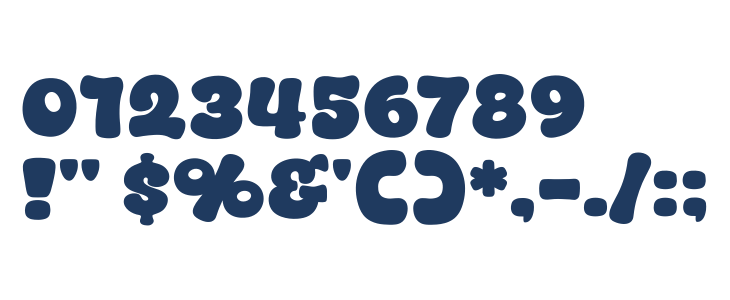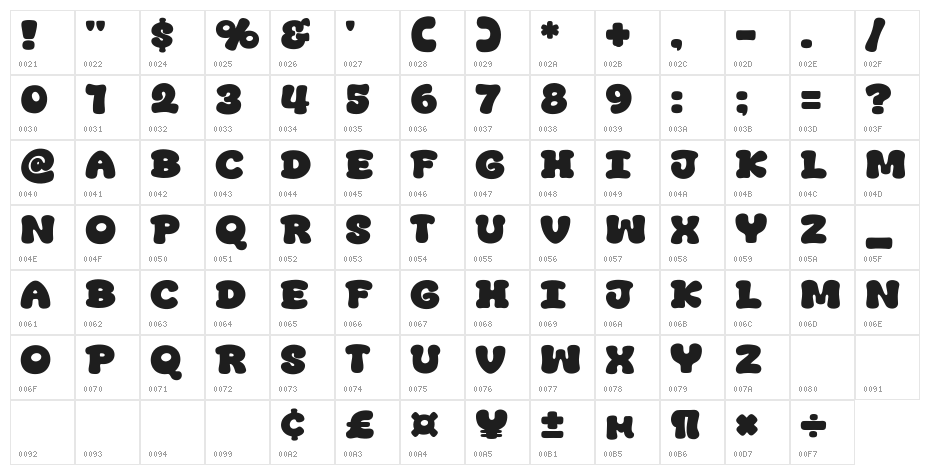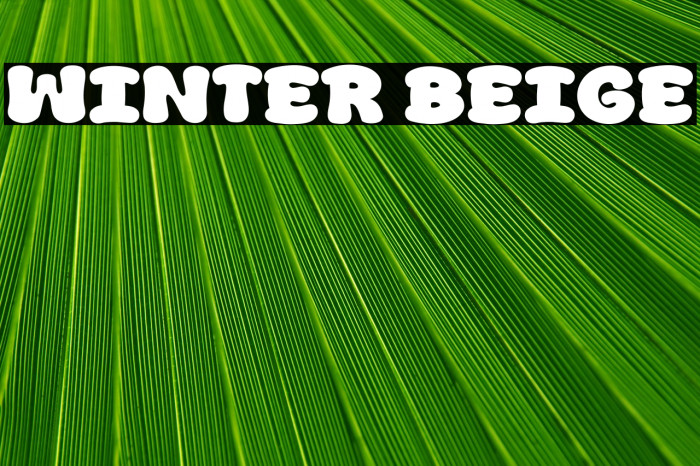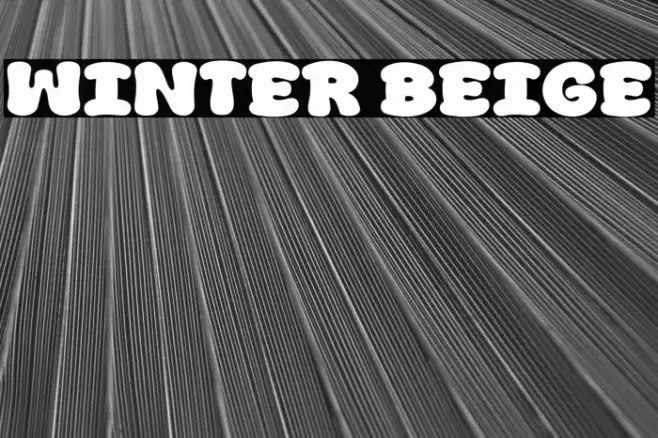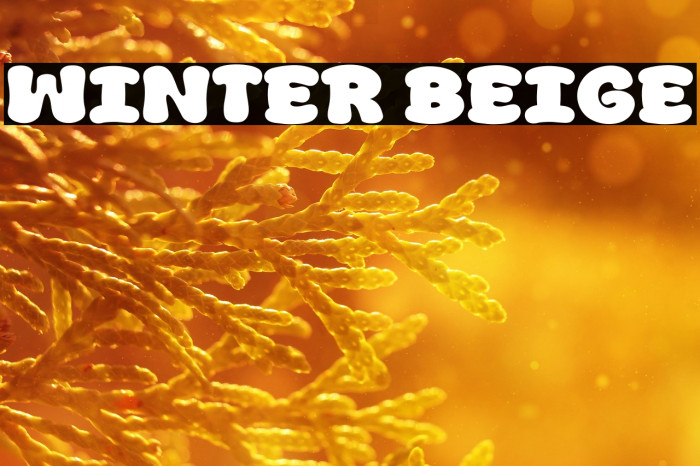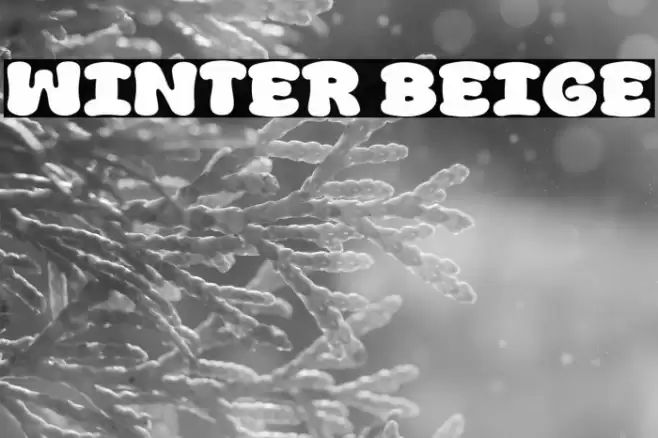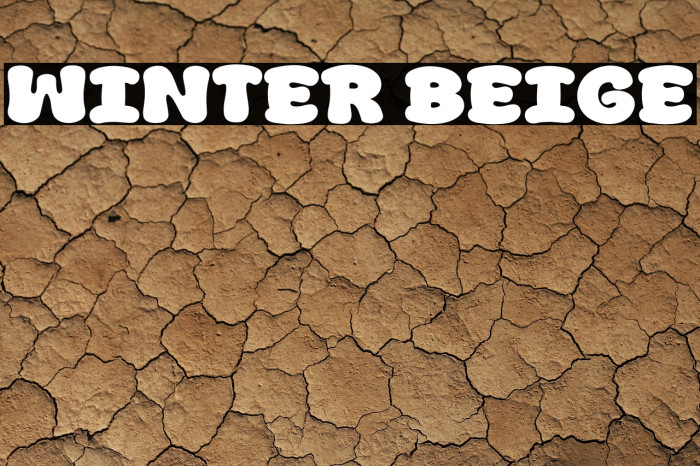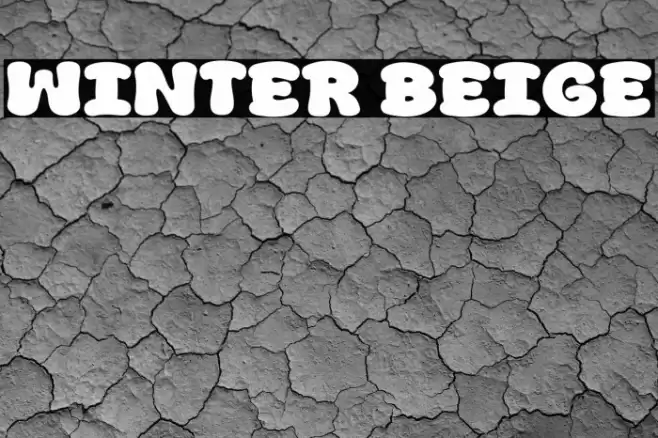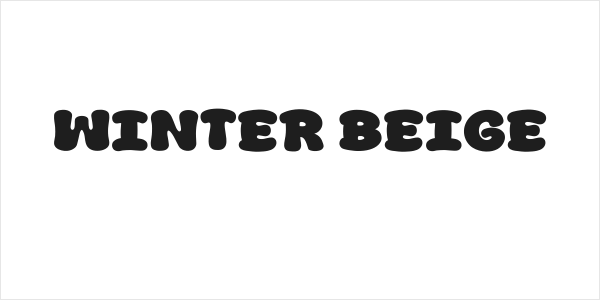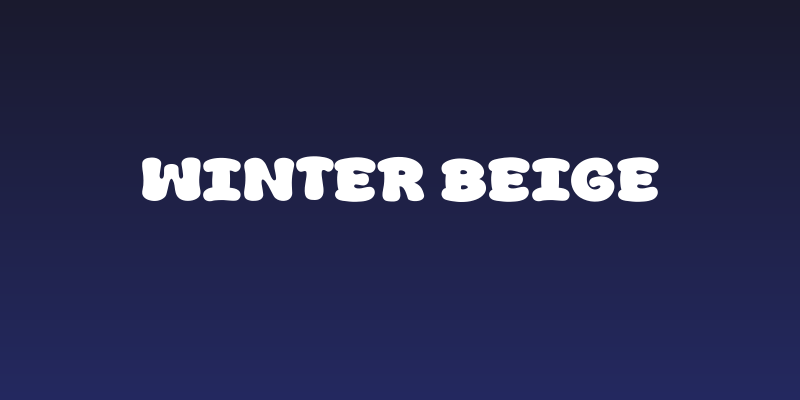
Winter Beige Font
Winter Beige Description
This font features a bold and playful design with rounded, bubbly characters that exude a sense of fun and whimsy. The letters are thick and have a soft, almost inflated appearance, making them highly distinctive and eye-catching. The uniformity in stroke width across all characters gives it a cohesive look, while the rounded edges add a friendly and approachable feel. This style is reminiscent of retro or vintage designs, often seen in playful or informal contexts. The font includes a full set of uppercase and lowercase letters, numbers, and a variety of special characters, ensuring versatility in its application.
| Overall Style | Retro, Playful |
| Use Case | Logos, Posters, Headlines |
| Proposed Projects | Ideal for children's books, playful branding, party invitations, and retro-themed designs. |